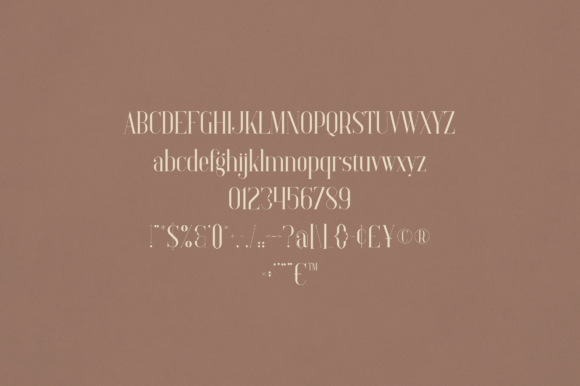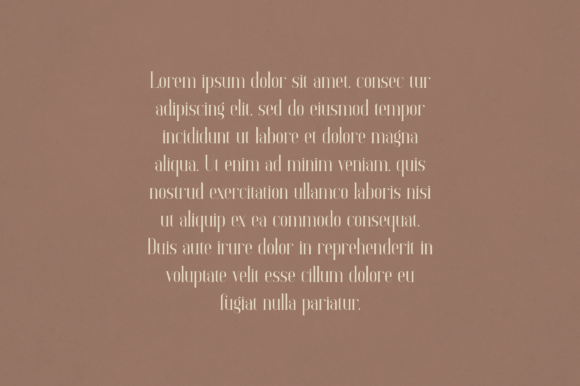
Introduction to Emersyn Font
Have you ever stared at a blank page, searching for the perfect font to bring your creative project to life? We’ve all been there, frantically scrolling through design resources, trying to find that elusive combination of style and functionality. But what if I told you that your search is over? Introducing the Emersyn Font, a stunning and versatile serif font that will elevate your typography and leave a lasting impression.
Whether you’re working on a branding project, designing home-ware, or crafting product packaging, the Emersyn Font is the perfect companion. Its elegant design makes it suitable for a wide range of applications, from magazine headers to stylish text overlays on background images. And the best part? This high-quality font is available for free download, making it an invaluable resource for designers of all levels.
Key Features of Emersyn Font
- High-quality, professional font designed for creative projects and personal use.
- Unique, modern design with a transparent background, allowing for maximum versatility in your design work.
- Perfect for use in digital and print media, including logos, graphics, and text-based designs.
- Designed to be highly legible and visually appealing, making it an excellent choice for your creative project.
Honest Review: Emersyn Font
I recently had the chance to work with the Emersyn Font in a creative project and was impressed by its quality. The font is a free download, which is always a plus for designers on a budget. However, I was blown away by its high quality and versatility.
- ✨ Elegant and refined design: The Emersyn Font has a sophisticated look that’s perfect for high-end branding or luxury packaging designs.
- ✨ Highly legible: The font is easy to read, even in small sizes, making it ideal for body text in creative projects.
- ✨ Transparent background: The font’s transparent background makes it easy to use on complex backgrounds without the text getting lost.
However, I did encounter a few limitations while using the Emersyn Font. ⚠️ The font doesn’t have a lot of stylistic variations, which can make it feel a bit one-dimensional at times.
Overall, I was really impressed by the Emersyn Font and would definitely consider using it in future design projects. Its high quality and elegant design make it a valuable resource for any designer. With a little creativity, the limitations of the font can be overcome, making it a great addition to any design arsenal.
Tips for Getting the Most Out of Emersyn Font
Emersyn Font is a free download with a transparent background, making it perfect for any design project. Use it to add a touch of elegance and sophistication to your designs.
Some common use cases for Emersyn Font include:
1. Logo design
2. Branding materials
3. Social media graphics
4. Print materials
The Emersyn Font is designed for general use, including body text, headings, and titles. It’s an excellent choice for creative projects that require a high-quality, modern font. However, it’s not recommended for use in situations where a font with a strong, bold texture is required, such as in editorial or newspaper designs.